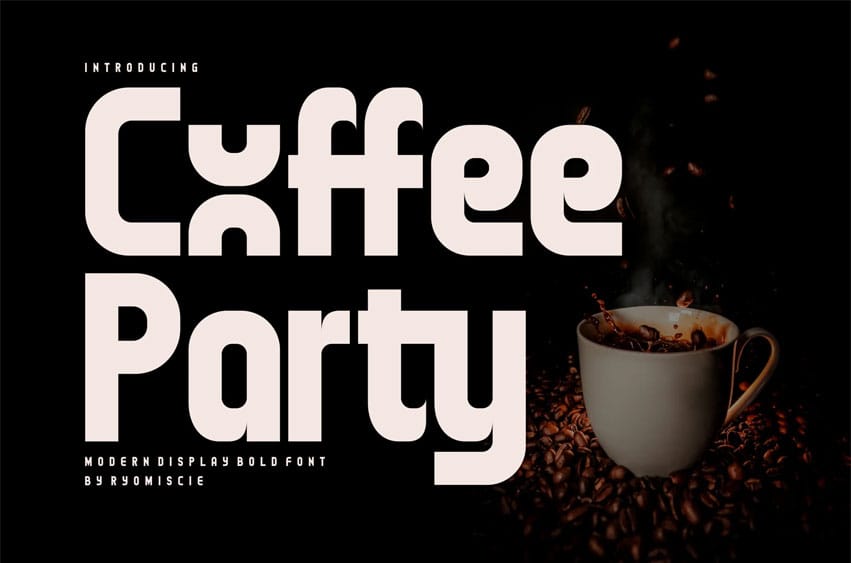
Coffee Party Font Modern Font is a bold and authentic display font. The font is suitable for any branding project, like logos, esport, and many more.
- Alternate
- Discretionary